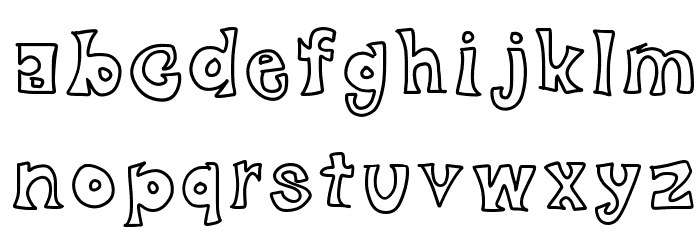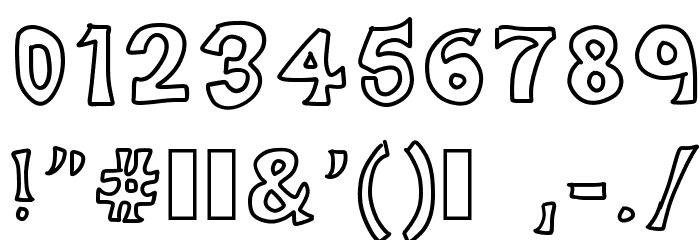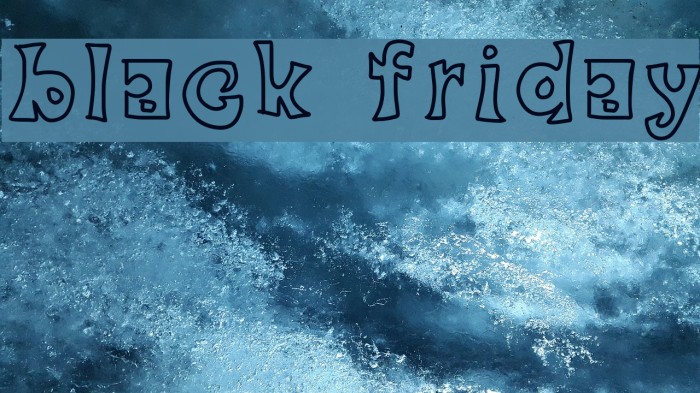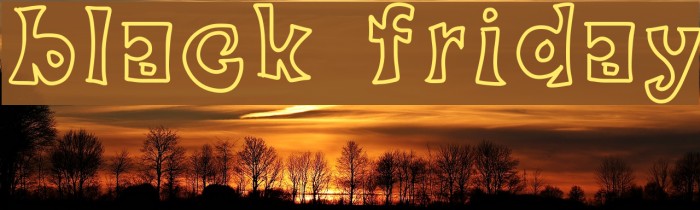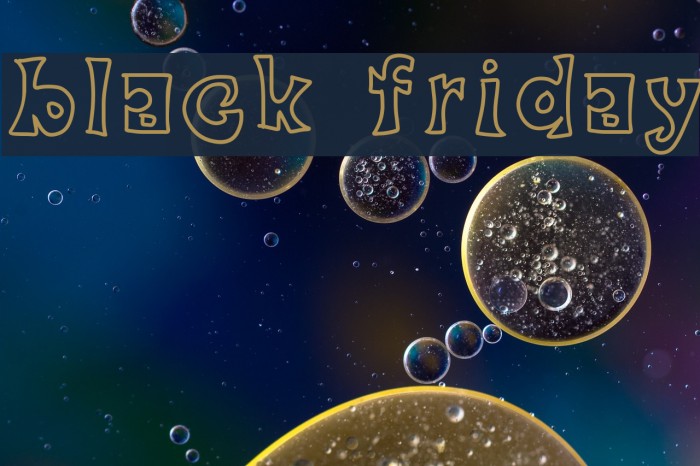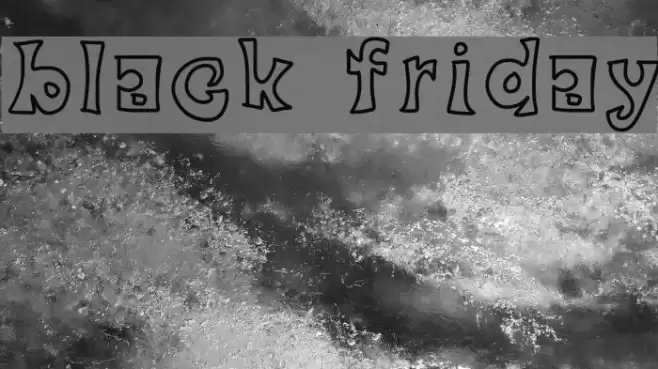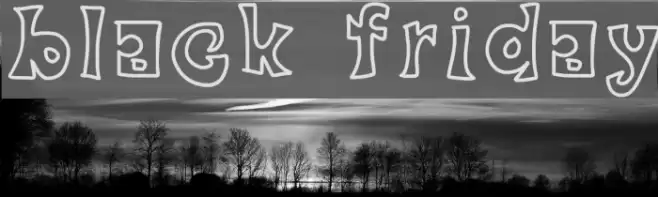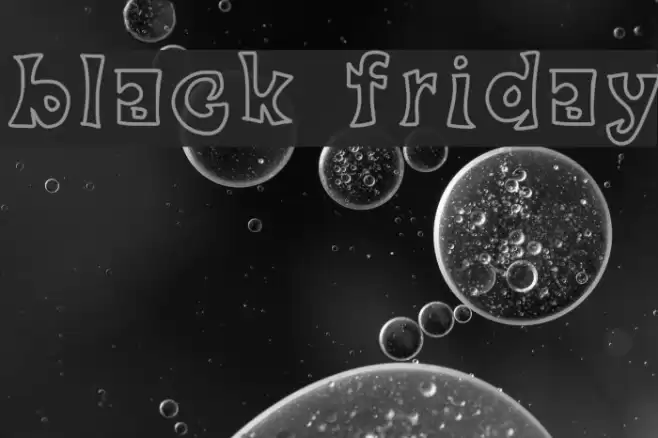
black friday Font
This playful and bold font features a unique, hand-drawn style with a whimsical touch. Each character is outlined, giving it a cartoonish and lively appearance. The letters have a slightly irregular shape, adding to the casual and fun aesthetic. The font maintains a consistent stroke width, which contributes to its cohesive look. It includes both uppercase and lowercase letters, numerals, and a variety of special characters. The overall design is eye-catching and suitable for projects that aim to convey a sense of fun and creativity.
A playful, hand-drawn font with outlined characters and a whimsical style.
- Proposed Projects: Ideal for children's book covers, playful branding, party invitations, and creative posters.
- Overall Style: Playful, Whimsical